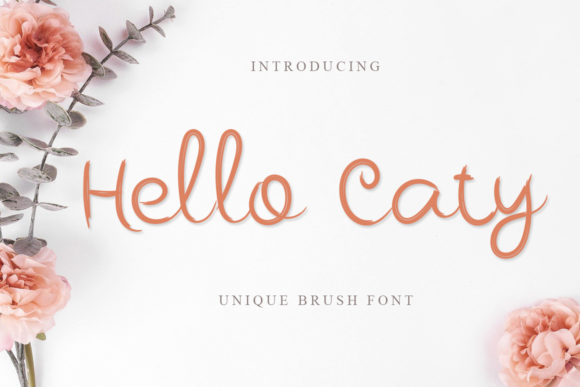
Introducing Hello Caty Font: The Sweetest Handwritten Script for Your Culinary Masterpieces
Step into a world where culinary artistry meets typographic elegance with Hello Caty Font, the finest handwritten script designed to tantalize your taste buds and evoke the warmth of home-cooked meals. Crafted with love by Seven Letter, Hello Caty embodies the delicate brushstrokes of a pastry chef, transforming every culinary creation into a visual feast.
Unleash the delectable charm of your food website with Hello Caty Font. Its graceful curves and playful flourishes will entice visitors, inviting them into a culinary haven where every dish becomes a masterpiece. Picture menu cards that dance with whimsical lettering, tantalizing taste buds with promises of mouthwatering delights. Social media posts will blossom with vibrant imagery, showcasing your culinary creations in a way that sparks cravings and drives engagement.
Hello Caty Font is not just a font; it's a secret ingredient that elevates your culinary creations to new heights. Its versatility extends beyond food-related ventures, adding a touch of sweetness to invitations, greeting cards, and any project that demands a dash of whimsy.
Imagine wedding invitations adorned with Hello Caty's graceful script, capturing the joy and romance of the special day. Its delicate strokes will pen heartfelt messages, conveying the warmth of your love and creating cherished memories.
But Hello Caty Font is more than just aesthetics; it's a testament to the power of typography to evoke emotions and create connections. Its playful nature invites smiles and laughter, making it the perfect choice for projects that aim to spread joy and uplift spirits.
In a world saturated with digital clutter, Hello Caty Font stands out as a beacon of originality and charm. Its ability to transform the ordinary into the extraordinary makes it an essential tool for businesses and individuals seeking to create a lasting impression.
So, whether you're a culinary artist, a creative entrepreneur, or simply someone who appreciates the beauty of handwritten words, Hello Caty Font is the perfect choice to add a touch of sweetness and personality to your projects. Embrace the magic of its delicate strokes and let your creativity soar to new heights.